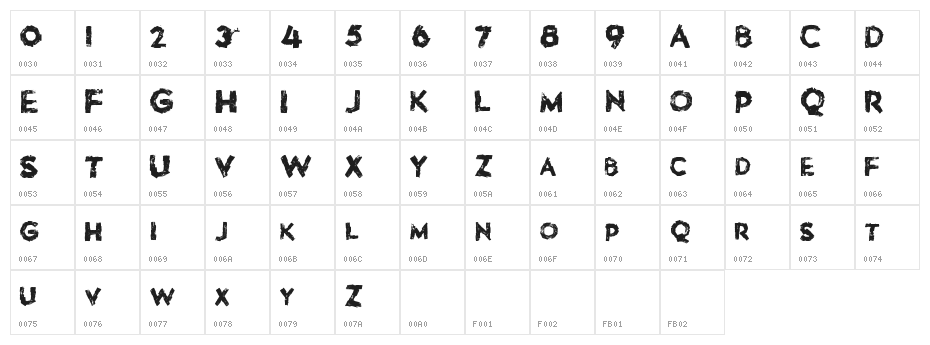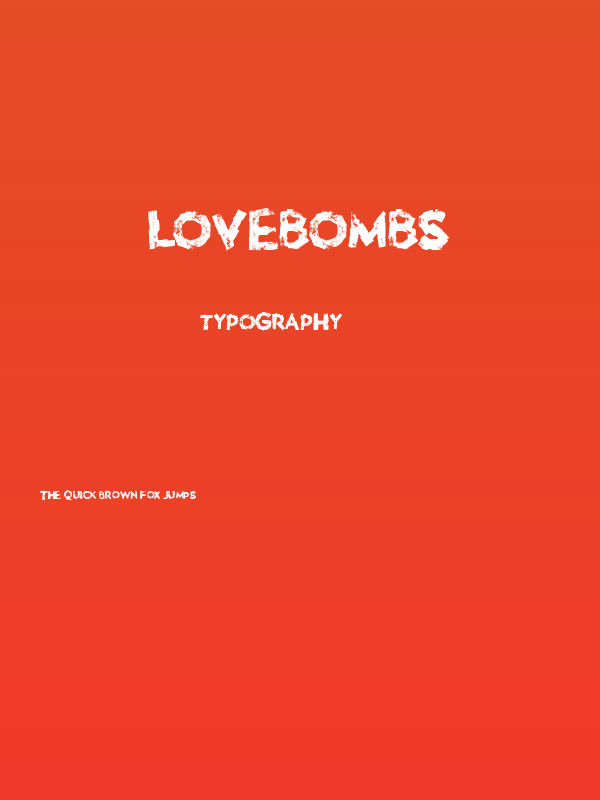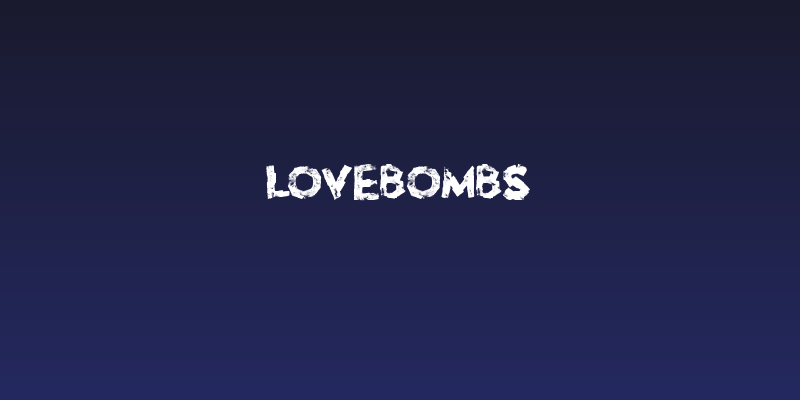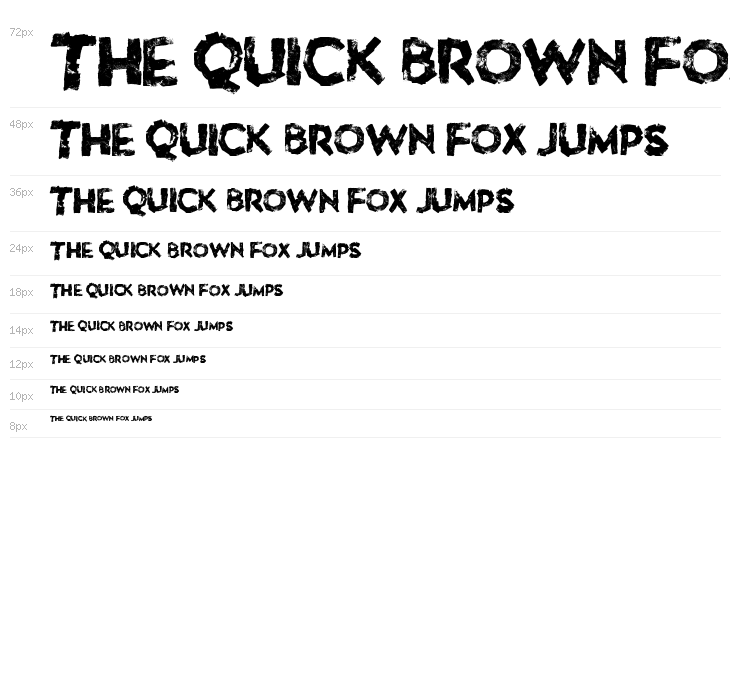
LoveBombs Font
LoveBombs Description
This font features a bold and distressed style, reminiscent of grunge or urban street art. The characters are rugged and textured, giving them a raw, edgy appearance. Each letter appears as if it has been stamped or painted with a rough brush, creating an uneven and organic look. The uppercase and lowercase letters maintain a consistent style, with jagged edges and a slightly chaotic feel. Numbers and special characters follow the same design, ensuring a cohesive visual theme. This font is ideal for projects that require a bold statement or a gritty, rebellious aesthetic.
| Overall Style | Grunge, Urban, Edgy |
| Use Case | Headlines, Posters, Branding |
| Proposed Projects | Ideal for album covers, posters, graffiti art, and edgy branding projects. |